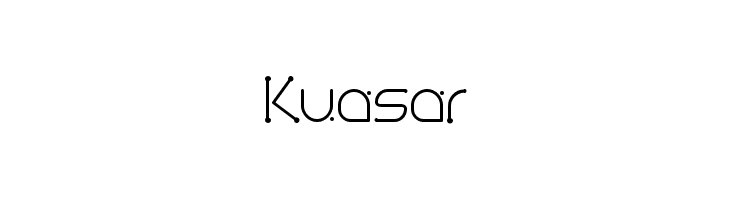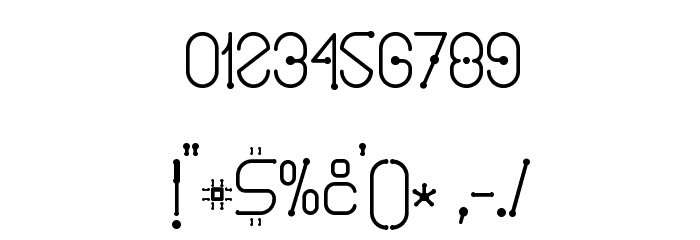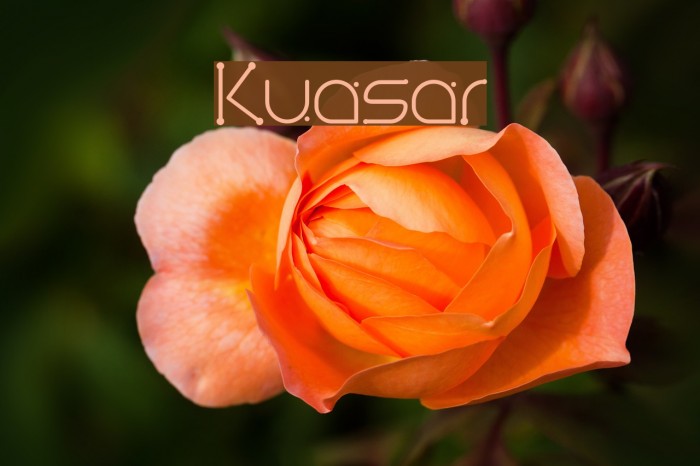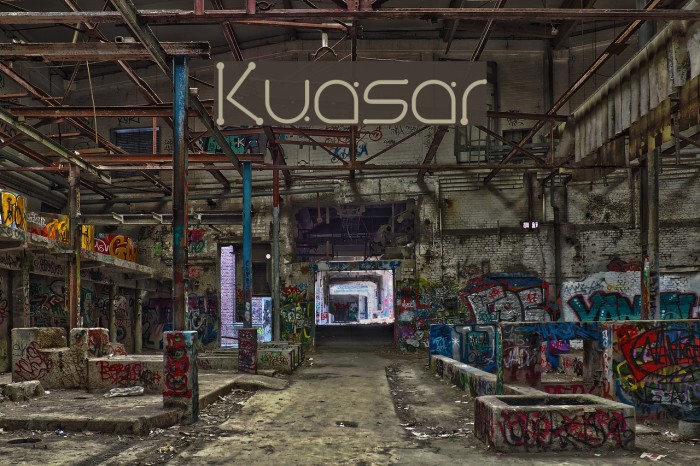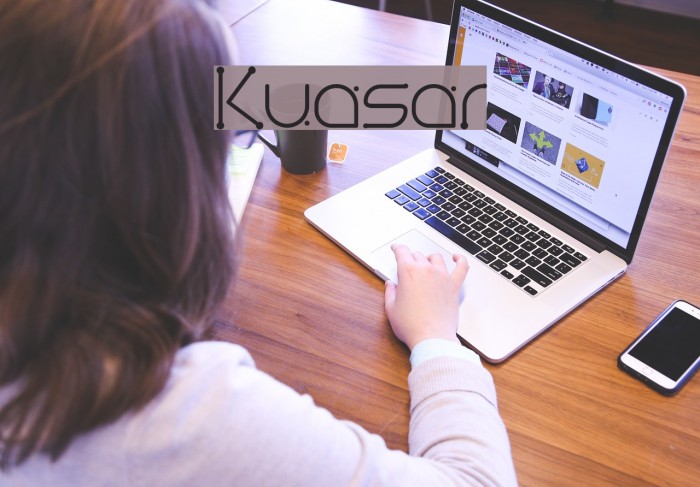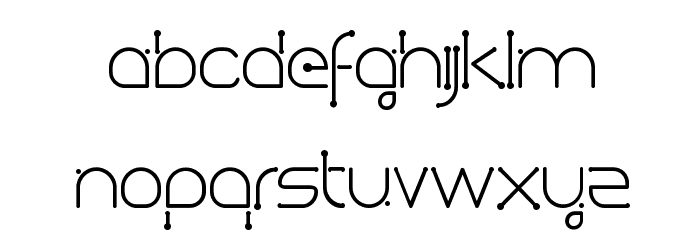
Kuasar Font
Kuasar Description
This font features a unique and futuristic design with rounded edges and a distinct dot motif at the end of certain strokes, giving it a digital and modern appearance. The characters are evenly spaced with a consistent stroke width, contributing to a clean and organized look. The uppercase and lowercase letters maintain a uniform style, while the numbers and special characters are designed to complement the overall aesthetic. The font's geometric structure and minimalistic approach make it suitable for tech-related projects or modern branding.
A futuristic font with rounded edges and dot motifs, ideal for tech and modern designs from Uncategorized fonts.
- Proposed Projects: Ideal for technology branding, digital interfaces, modern logos, and futuristic posters.
- Use Case: Logos, Headlines, Digital interfaces